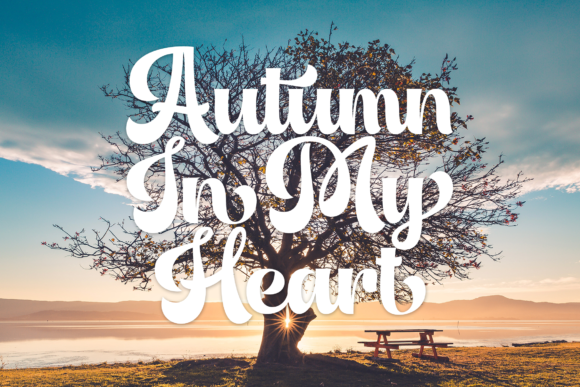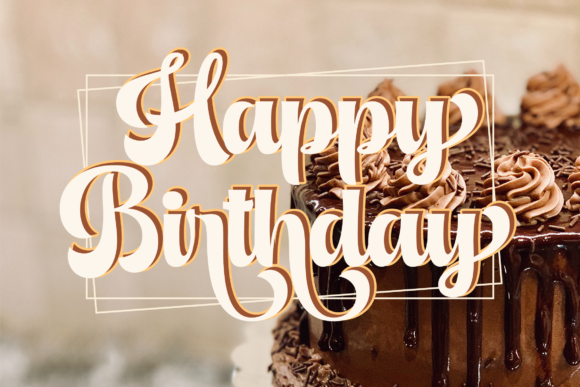
Luna Bella Font
db-ku.com - Script & Handwritten -- Luna Bella is a vintage and bold handwritten font. It has many alternate characters which will make it easy for you when choosing a character for each design project. This font is PUA encoded which means you can access all of the glyphs and swashes with ease!